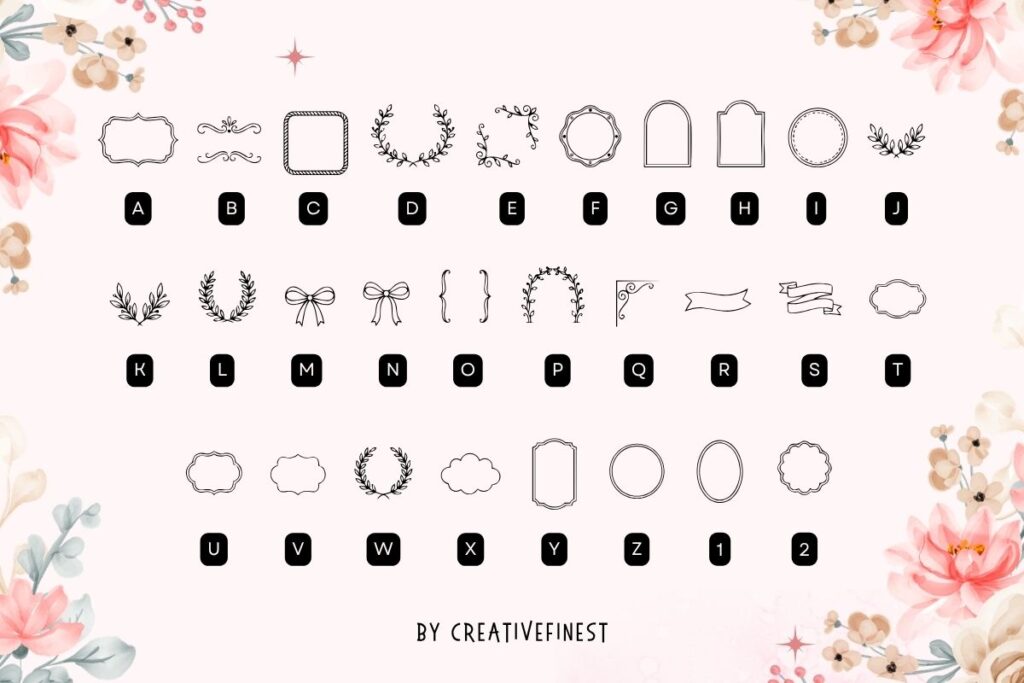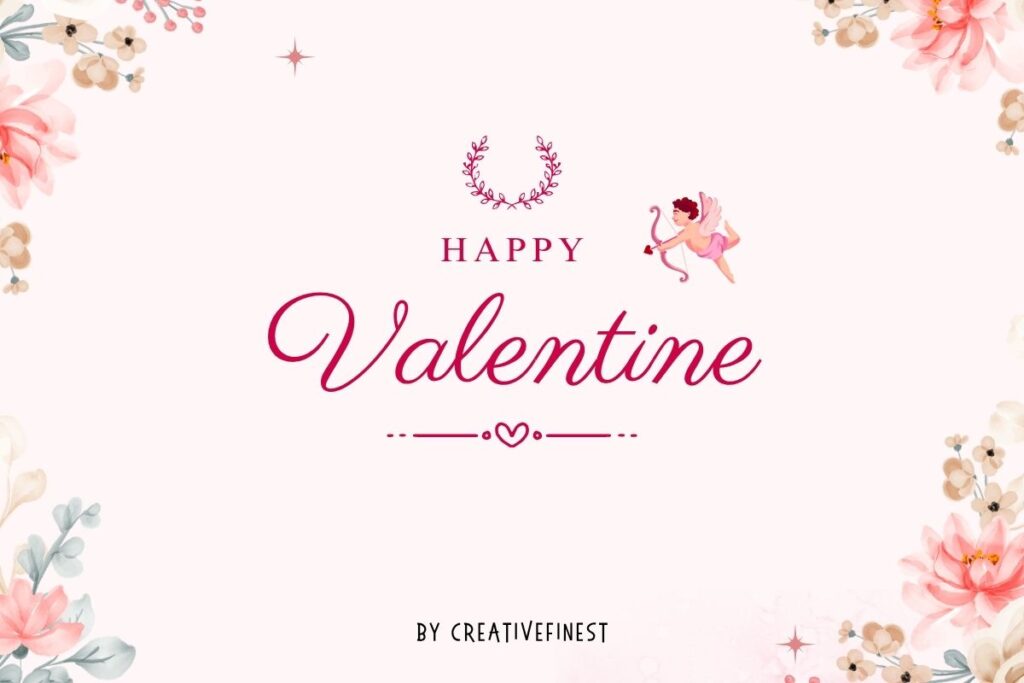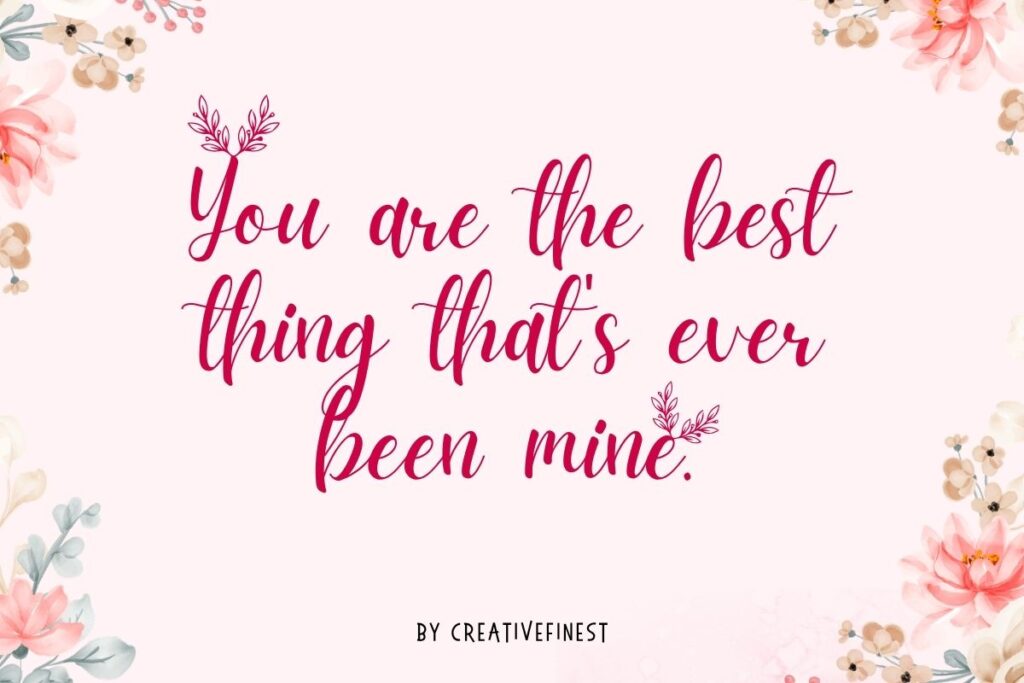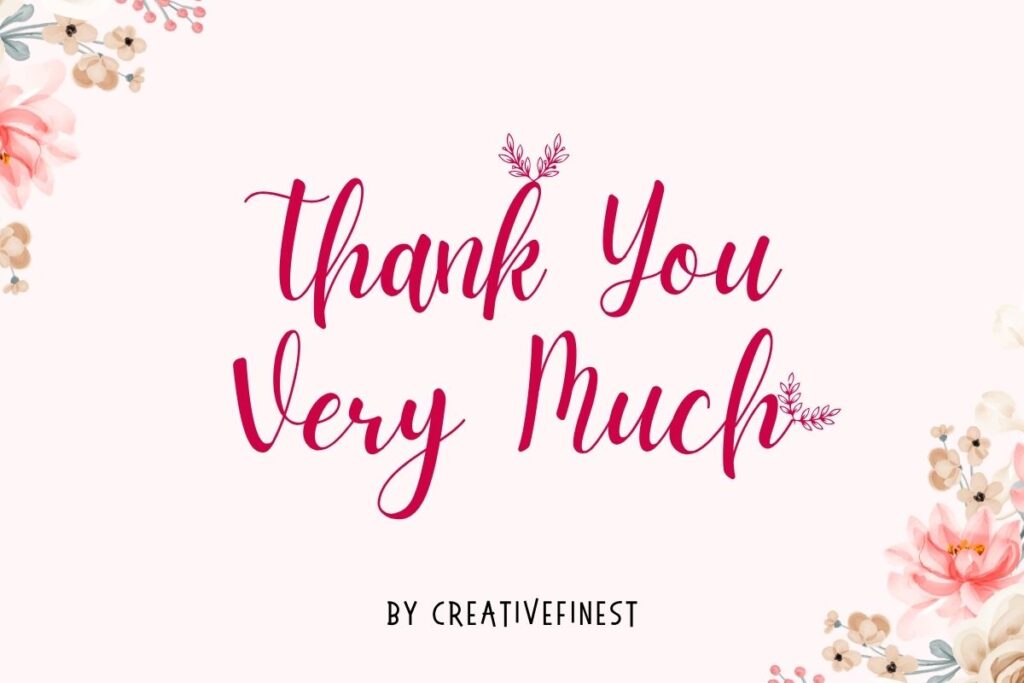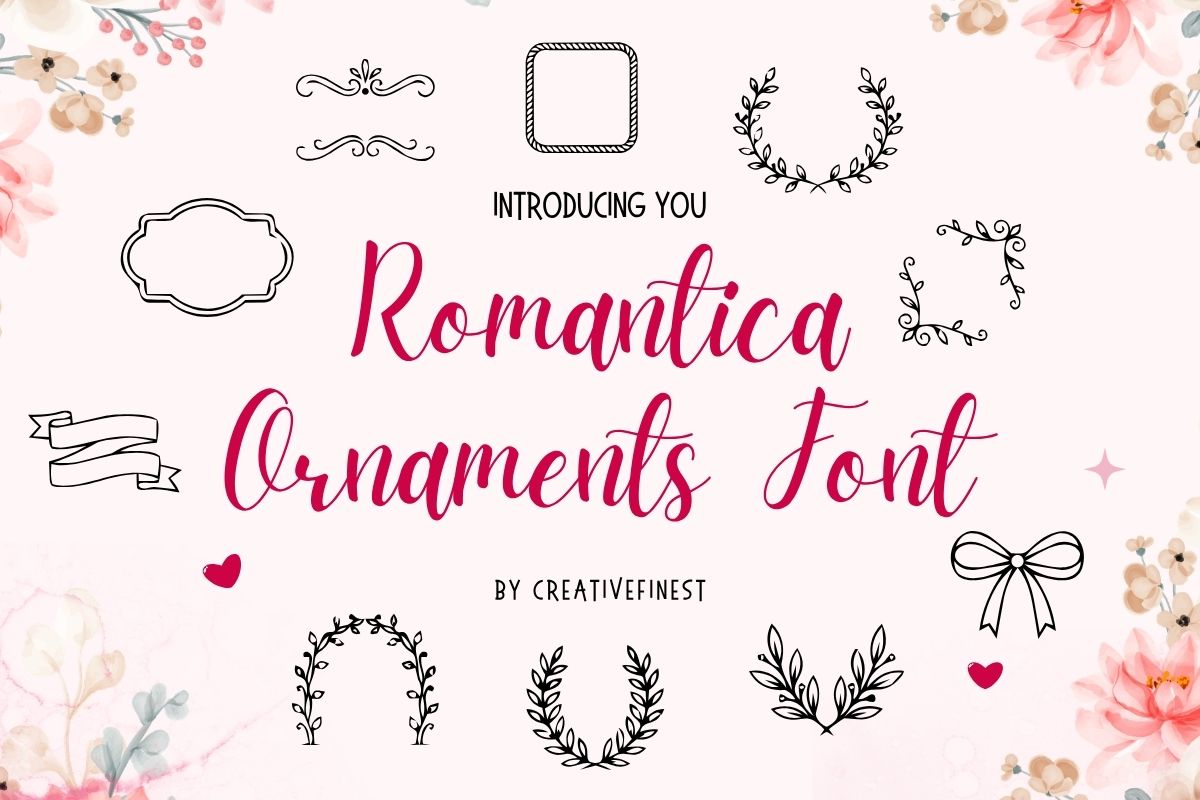
Romantica Ornaments Font
When you see Easters Diary Handmade Font, it feels soft and calm, like a quiet spring day. The letters look like they are written by hand, with small pretty shapes around them. It makes words feel warm and kind, so children and adults both enjoy reading them.
This style is easy to read and looks gentle on the eyes. This font is nice for small notes, cards, and fun pages for kids. It brings a sweet feeling to simple words and makes them look special without being hard to understand.